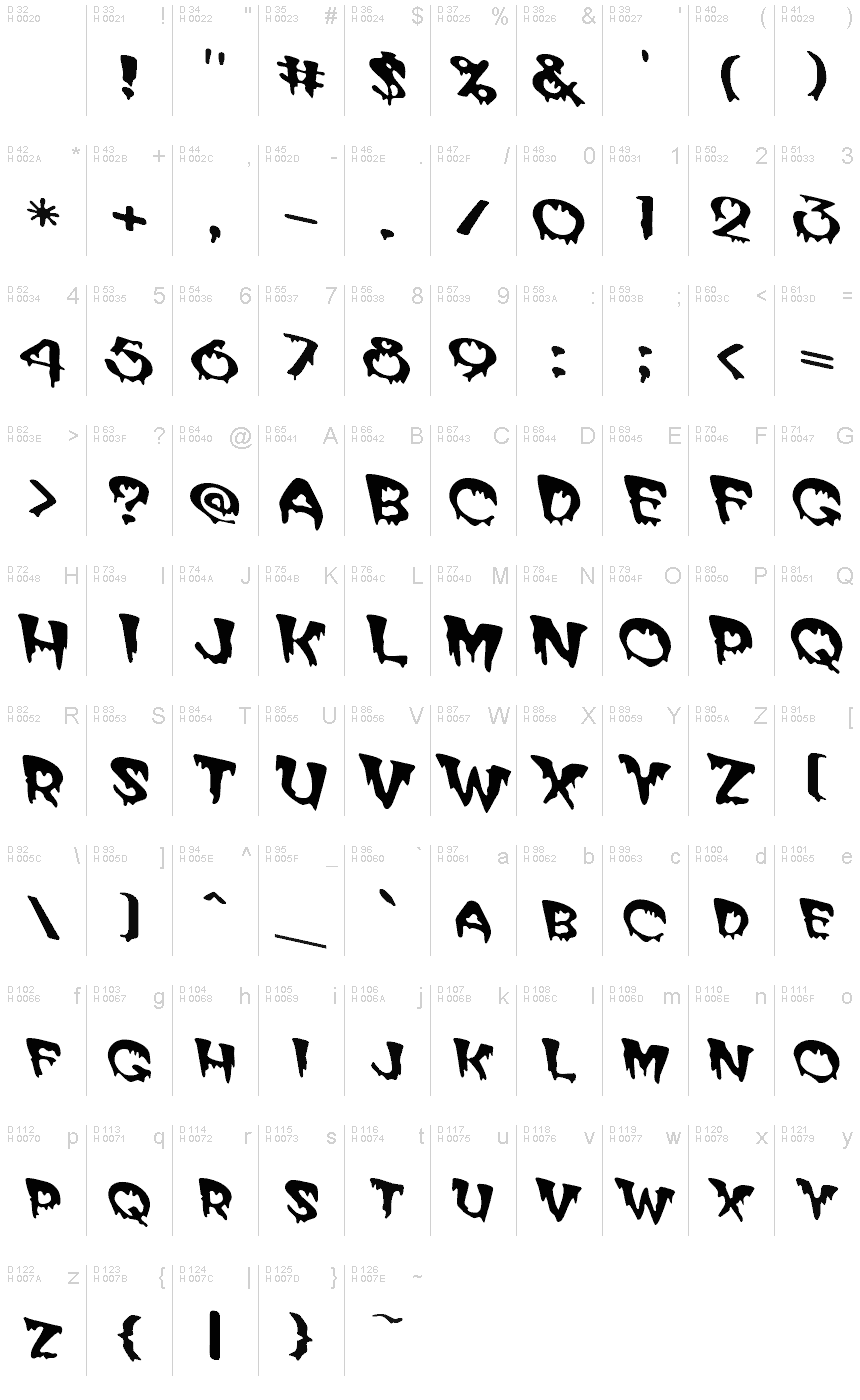
MATTEROFFACT
Matter of Fact is a bold, eye-catching display font that exudes an undeniably eerie and unsettling vibe. The jagged, distorted letterforms evoke a sense of unease, making this font an ideal choice for horror-themed designs, haunting Halloween layouts, or any project seeking to inject an ominous, unsettling atmosphere. The irregular, almost handwritten style lends a raw, primal quality, while the thick, dripping strokes heighten the font's menacing presence.
Matter of Fact's distinctive aesthetic can lend an impactful, chilling appeal to book covers, movie posters, album art, and more. Its versatility allows designers to leverage its distinct character to craft impactful, memorable visual narratives.